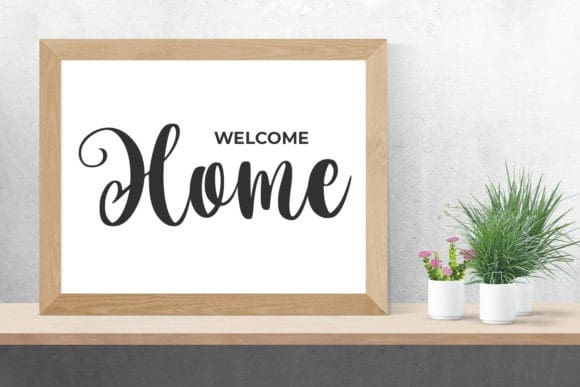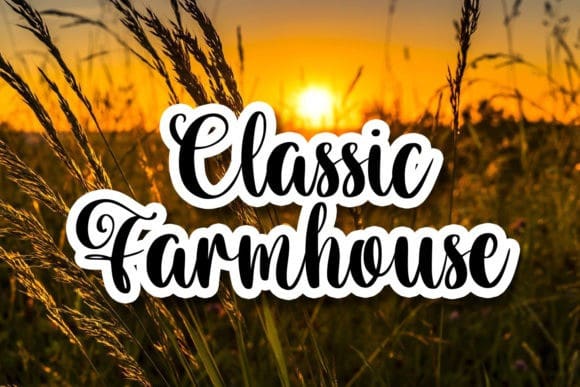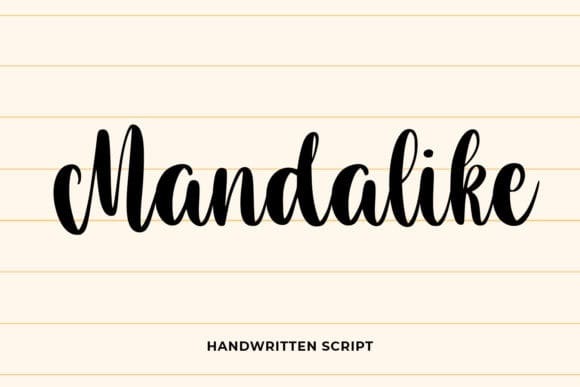
Mandalike Script Font
Mandalike Script Font, is a medium sized and beautiful script font. It is great for t-shirt designs, quotes, mugs, tote bag designs, cards, banners, social media, and anything related to craft projects.